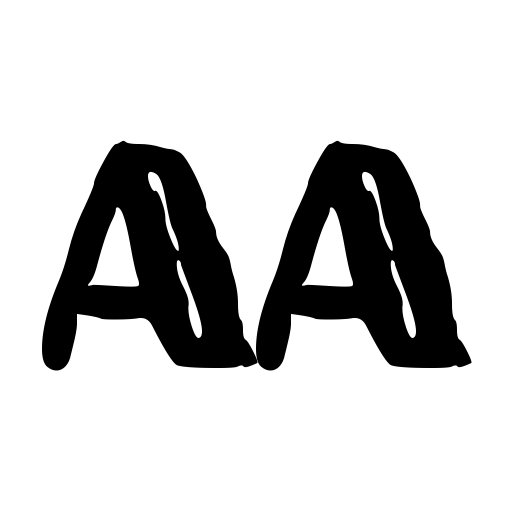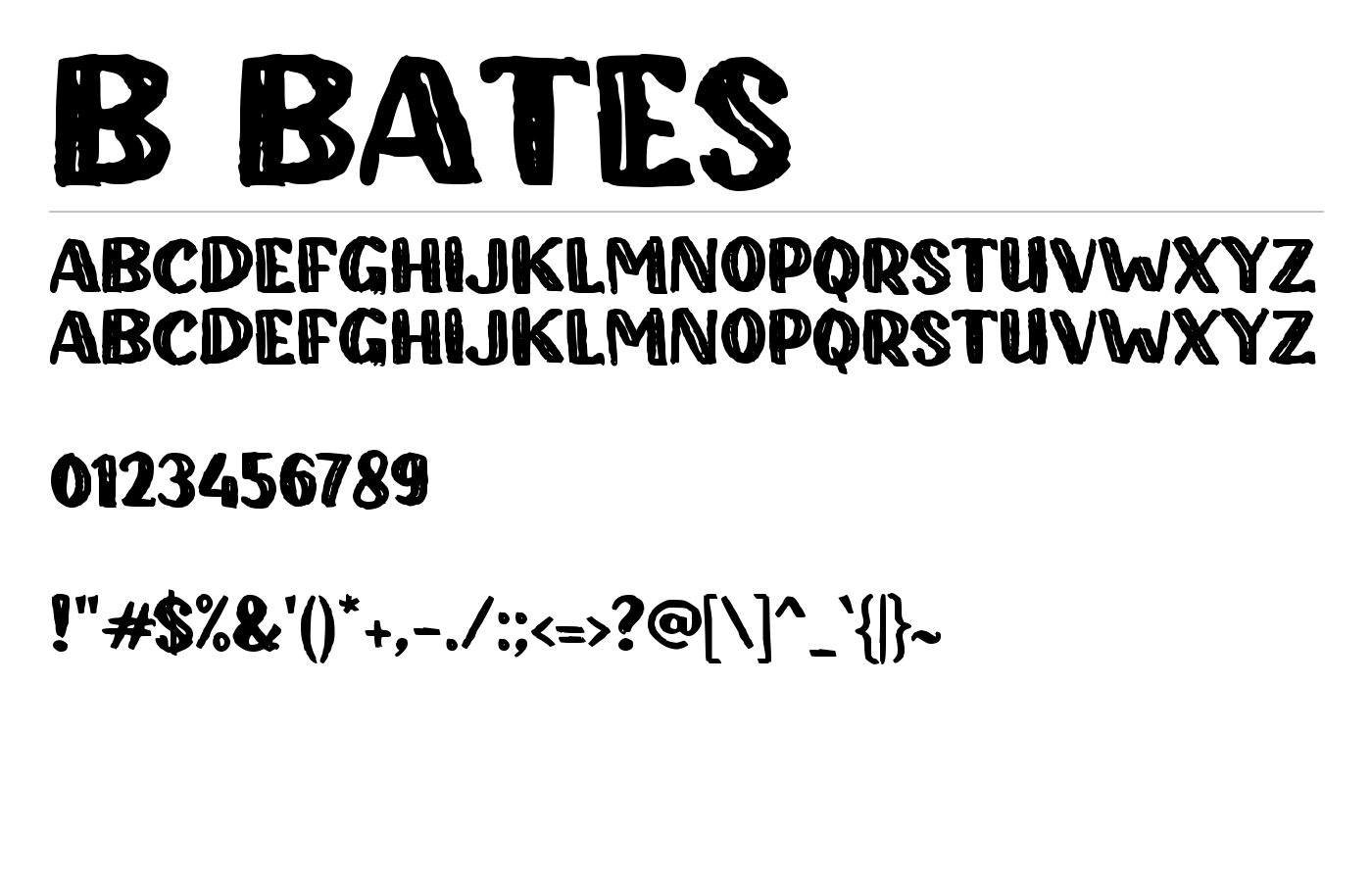
B Bates is a bold, hand-drawn sans serif font with a playful and textured appearance, featuring uneven strokes and slightly irregular shapes that give it a casual, artistic vibe. Its thick, rough lines and all-caps style make it ideal for eye-catching headlines, posters, and creative branding where a fun, informal tone is desired. This font works well for projects that want to convey personality and a handcrafted feel without sacrificing legibility.
b Bates Font
About b Bates Font
| Font family | b Bates Font |